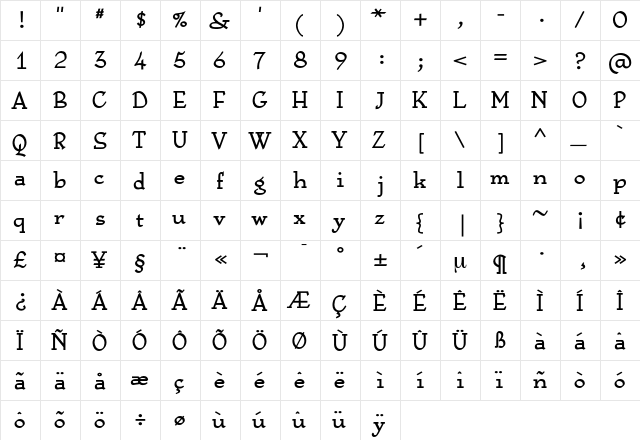
NympheBold Regular Font Preview
NympheBold Regular
Design Context for NympheBold Typeface
NympheBold offers clean, dependable letterforms without strong stylistic allegiance, making it a practical choice for designers who need flexibility. Its bold stroke weight gives it real presence on the page.
Pro Tip: Use NympheBold in both headline and body roles to test its range before committing to a single application.